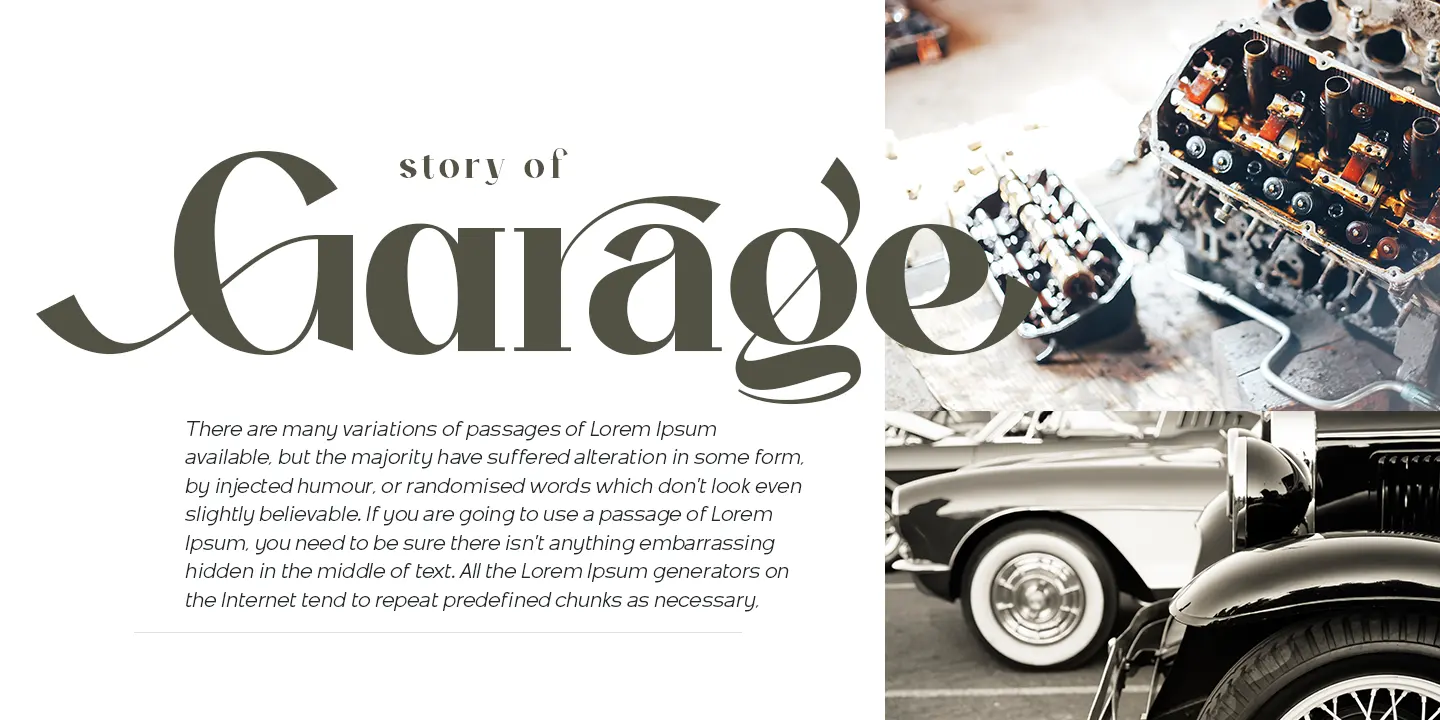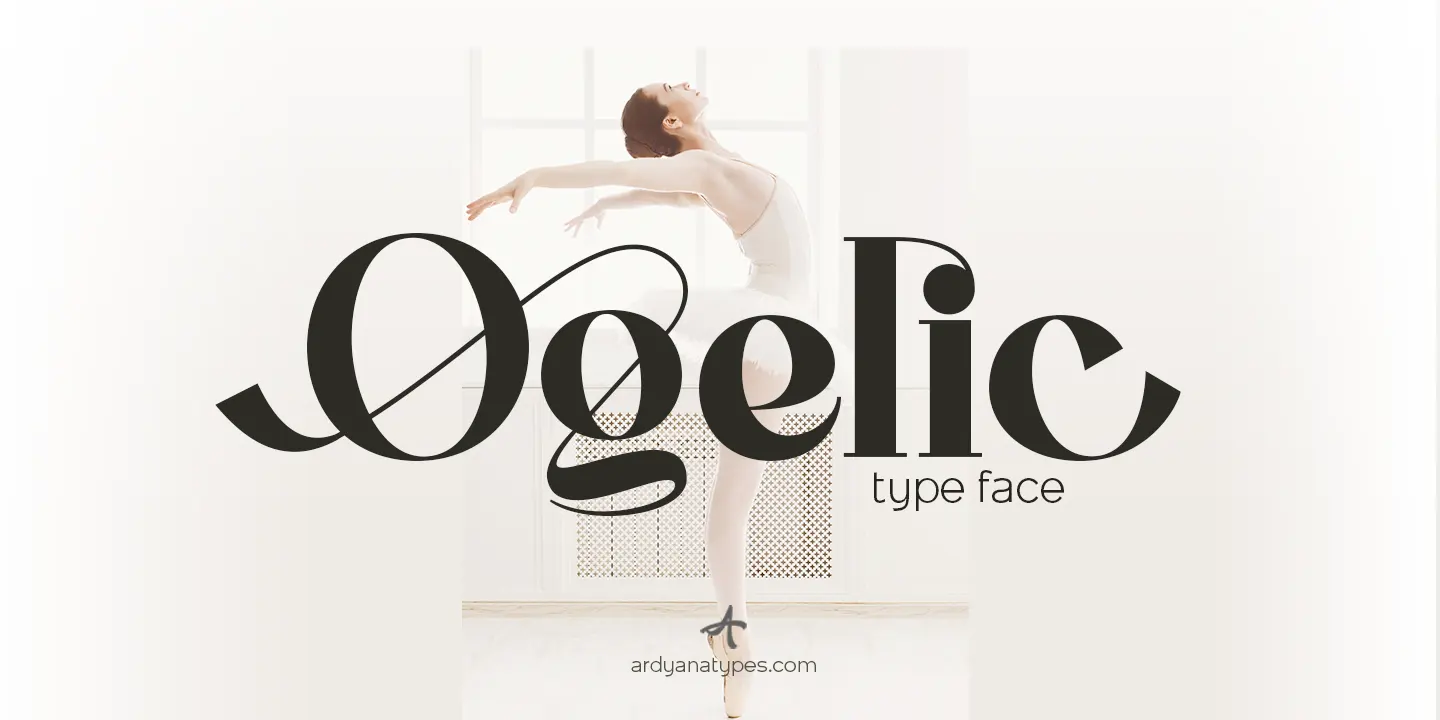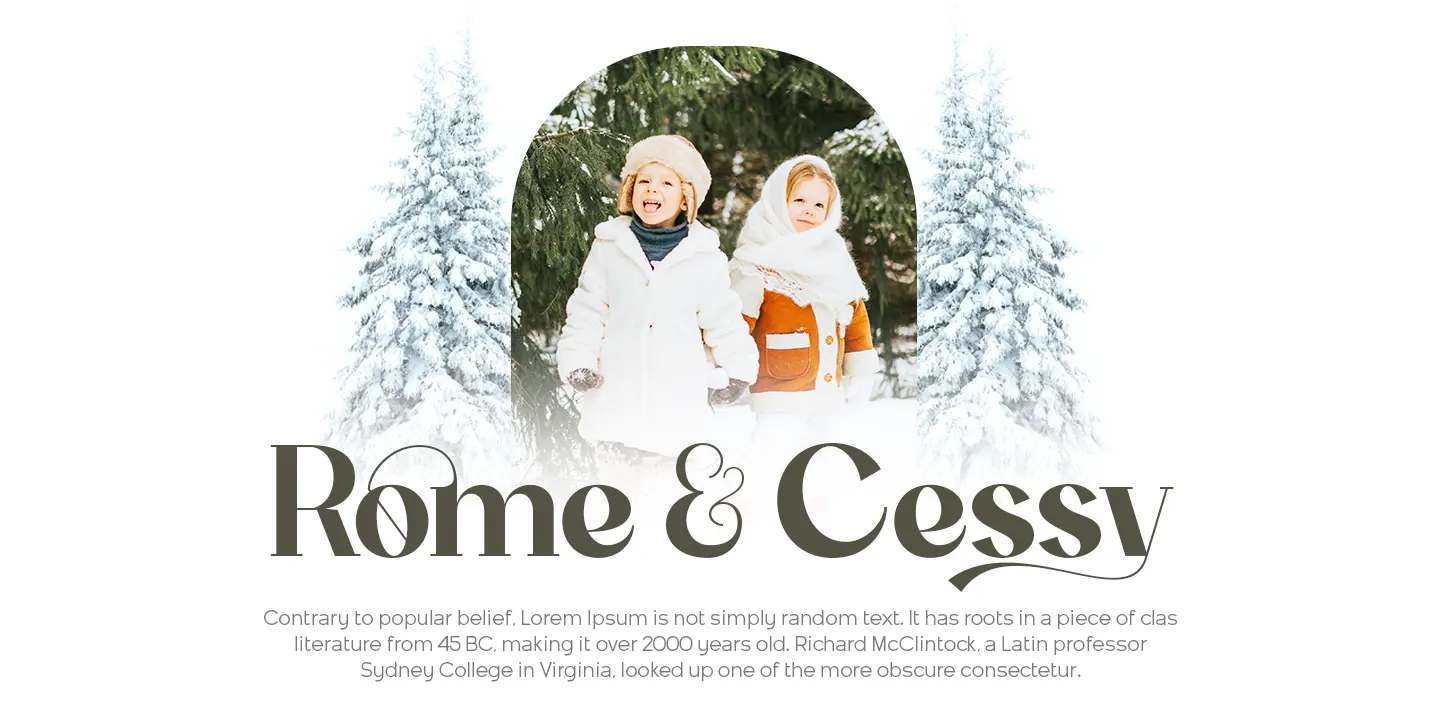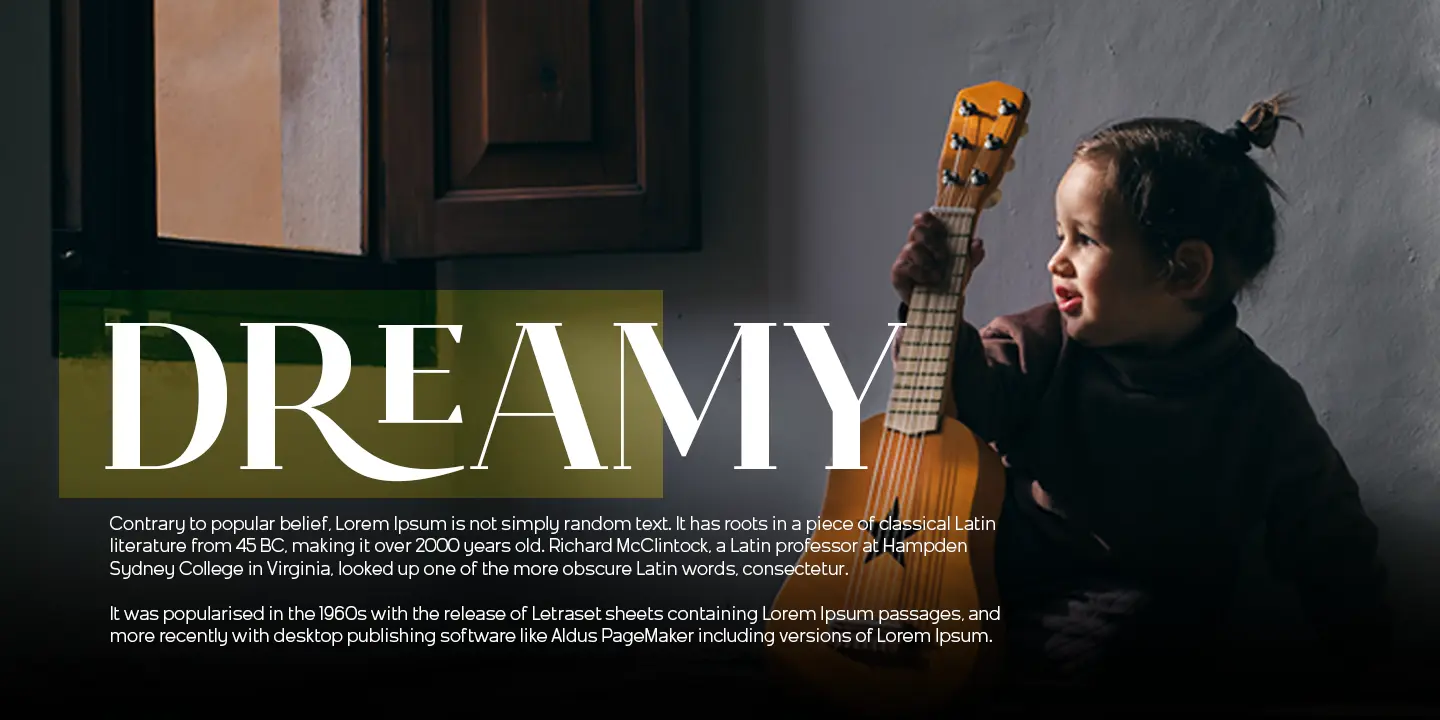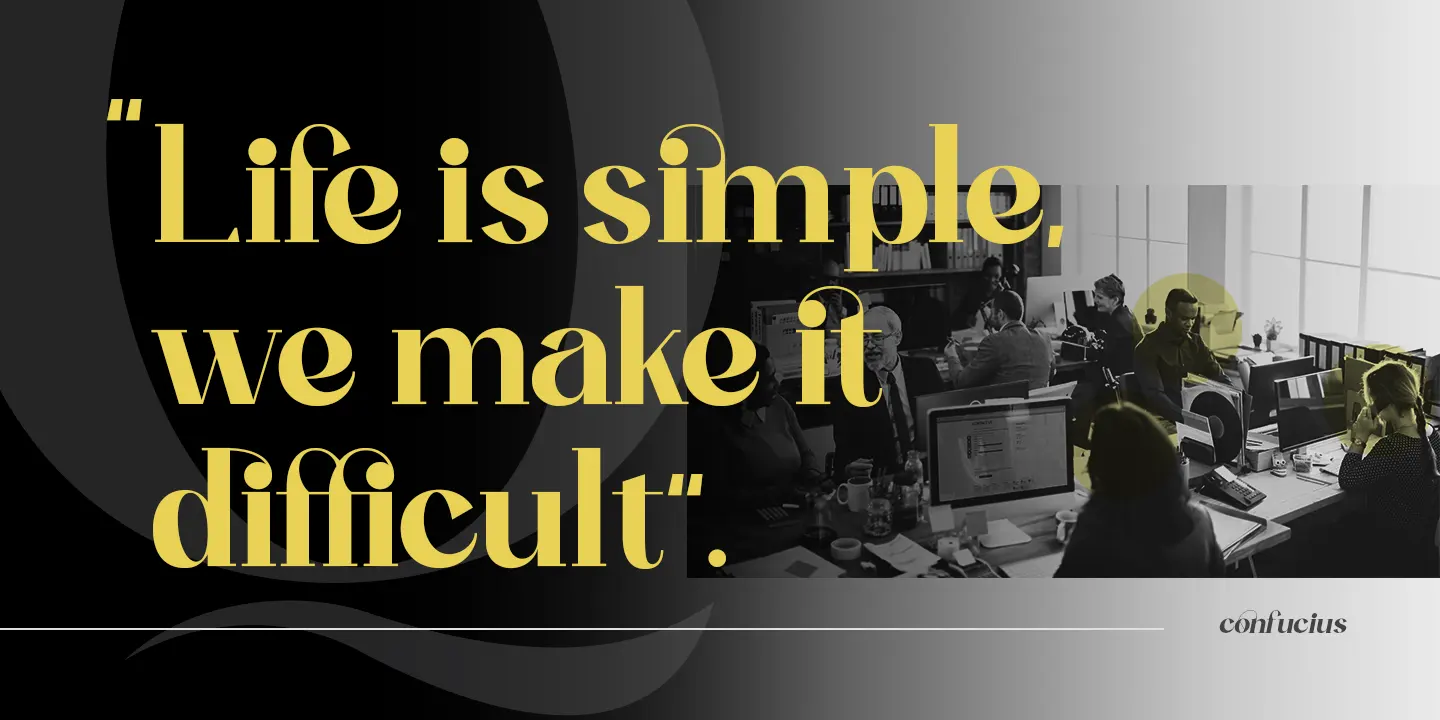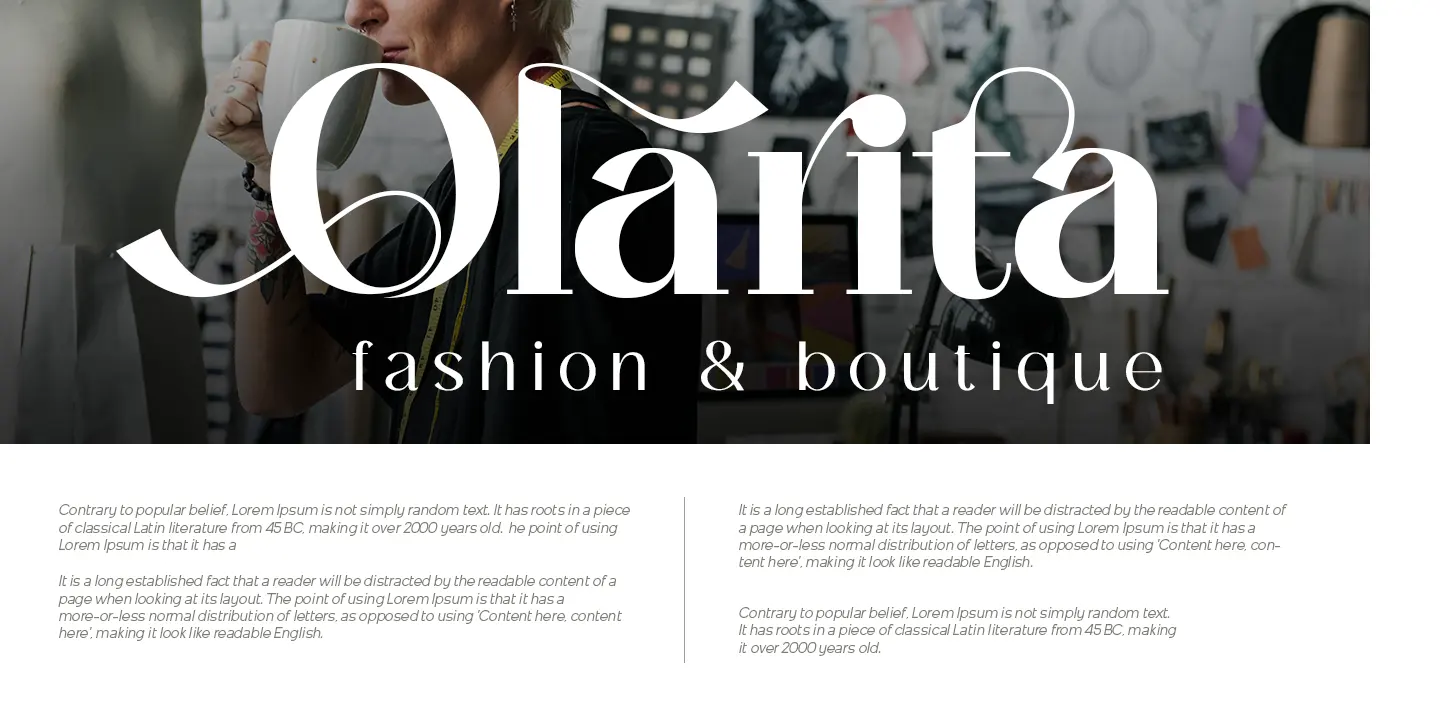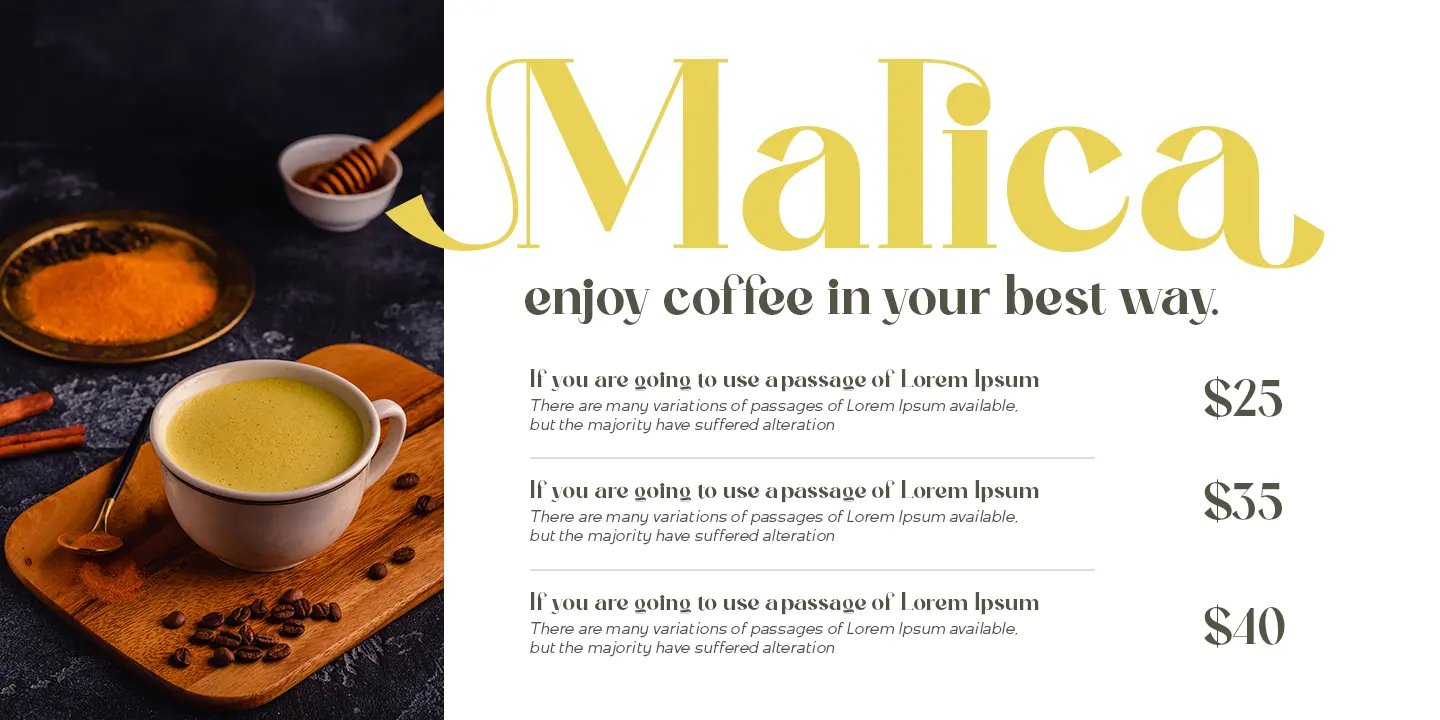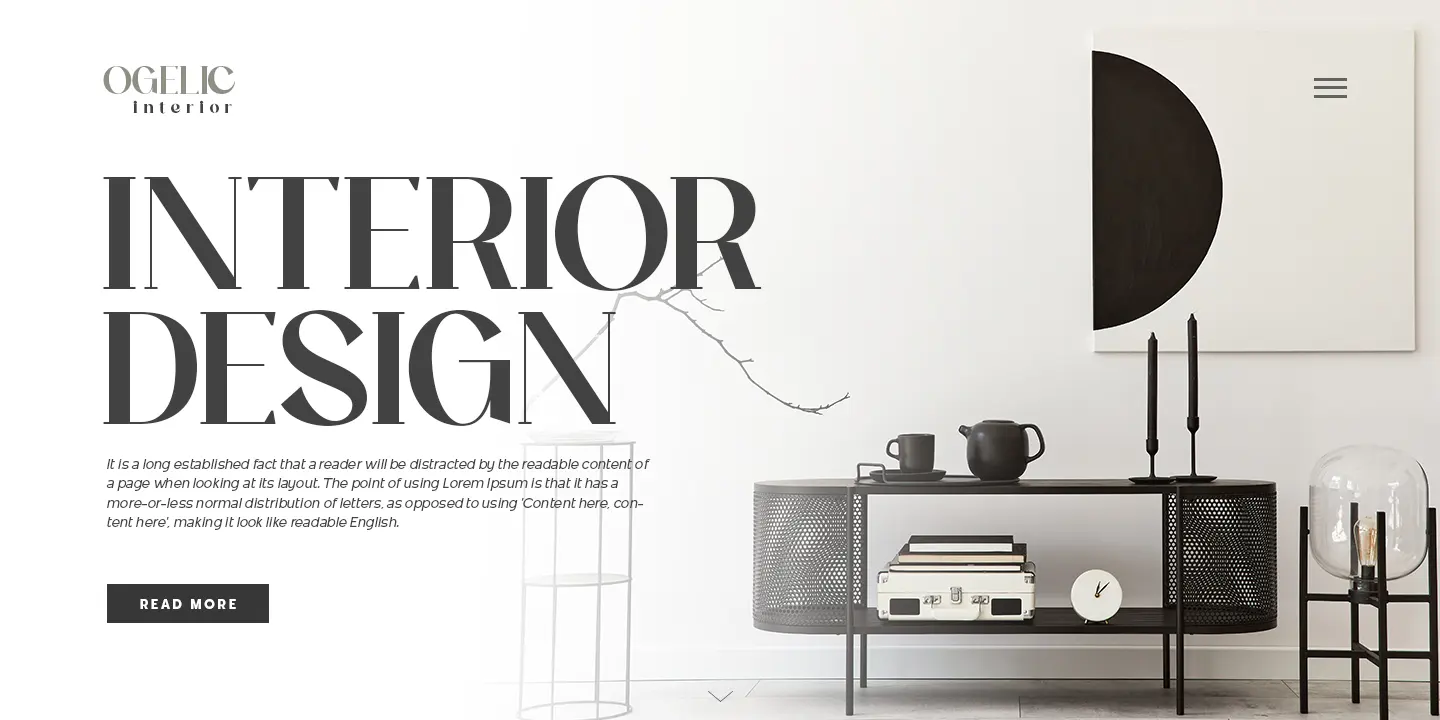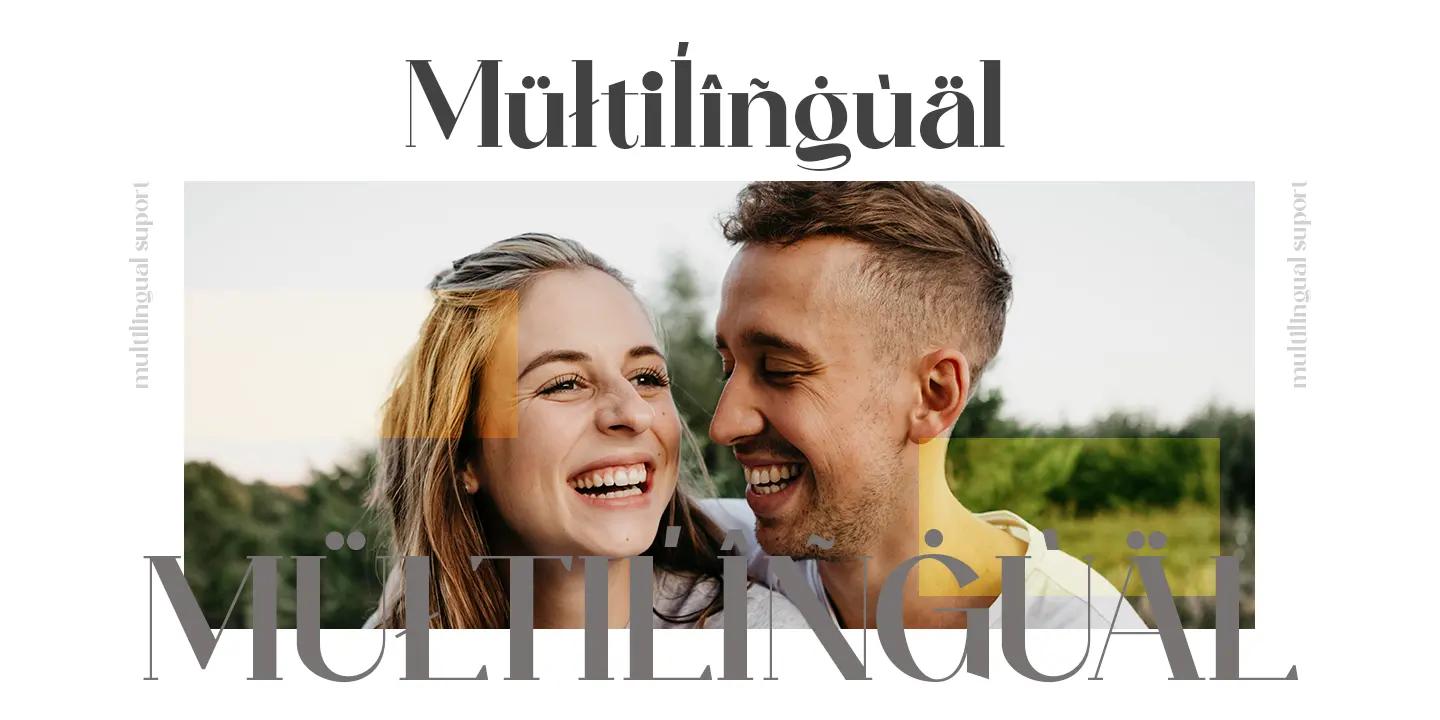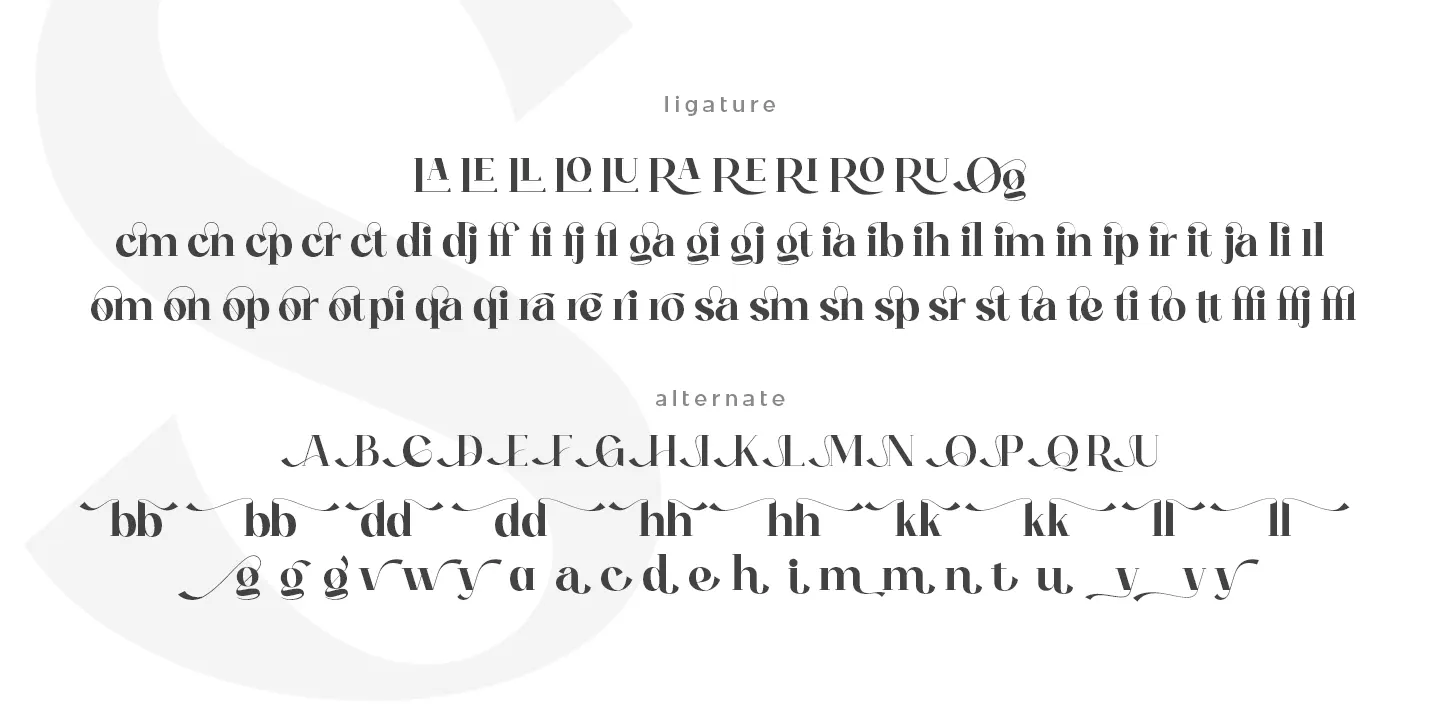
Ogelic - Serif Typeface
Ogelic Typeface Serif is modern and elegant. It pairs well with san serif as pictured or stands firm as a title and brand representative for an elegant look. This Ogelic Typeface is equipped with a modern professional character that can present an elegant and attractive identity for your company for business purposes such as business cards, name tags, and uniforms as a brand enhancement. This modern Ogelic typeface is suitable to be embossed as a letter nameplate or even pasted in your office with a cutting sticker that looks elegant. This elegant Ogelic-type shape is also stunning for book covers or magazine writing. You can see all the available characters in the screenshot above, and you can try the modern & elegant Ogelic now for any design issues. Ogelic also comes with multiple languages, making it easy for any country and language use. It also comes with alternative Ligatures and stylistics to make your designs more attractive.
• ffi ffi
• ffj ffj
• ffl ffl
• LA LA
• LE LE
• LL LL
• LO LO
• LU LU
• Og Og
• RA RA
• RE RE
• RI RI
• RO RO
• RU RU
• cm cm
• cn cn
• cp cp
• cr cr
• di di
• dj dj
• fj fj
• fl fl
• ga ga
• gi gi
• gj gj
• gt gt
• ia ia
• ib ib
• ih ih
• il il
• im im
• in in
• ip ip
• ir ir
• it it
• ja ja
• li li
• om om
• on on
• op op
• or or
• ot ot
• pi pi
• qa qa
• qi qi
• ra ra
• re re
• ri ri
• ro ro
• sa sa
• sm sm
• sn sn
• sp sp
• sr sr
• ta ta
• te te
• ti ti
• to to